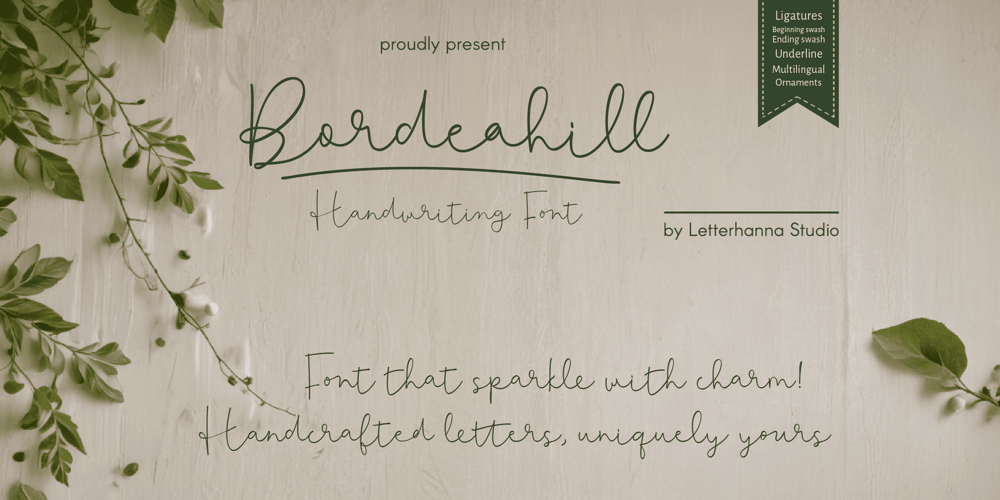
Bordeahill Font Family was designed by Rinaldo Hasibuan and published by Letterhanna Studio. Bordeahill contains 1 styles and family package options. Introducing Bordeahill, a charming new handwriting script font designed to elevate your creative projects with elegance and personality. With its smooth, flowing strokes and a touch of playful flair, Bordeahill captures the perfect balance between sophistication and warmth. Whether you’re crafting invitations, logos, or social media posts, this font is here to help your words stand out in style.